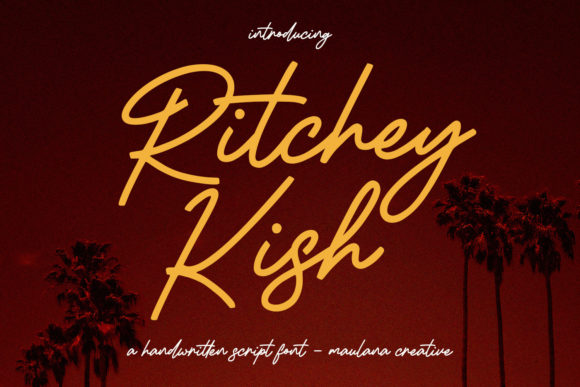
Behold the Ritchey Kish Font, an exquisite script font that will captivate your designs with its elegance and charm. This masterpiece, meticulously crafted by Maulana Creative, is a testament to the beauty of handwritten type. Its delicate strokes and graceful curves evoke a sense of artistry and sophistication, making it the perfect choice for a wide range of branding projects.
Let your imagination soar as you explore the endless possibilities of Ritchey Kish. Unleash your creativity and design logos that radiate personality, T-shirts that tell stories, and creative products that embody your unique vision. This font's adaptability extends to various contexts, ensuring that your designs shine in every setting.
With Ritchey Kish, you'll have the power to transform ordinary designs into extraordinary creations. Its visually stunning characters add a touch of magic to any project, captivating your audience's attention and leaving a lasting impression.
Step into the world of Ritchey Kish and discover a font that's more than just a collection of letters. It's an artistic expression that speaks to the heart and soul, elevating your designs to new heights of beauty and elegance. Embrace the power of Ritchey Kish and unlock the true potential of your creative endeavors.